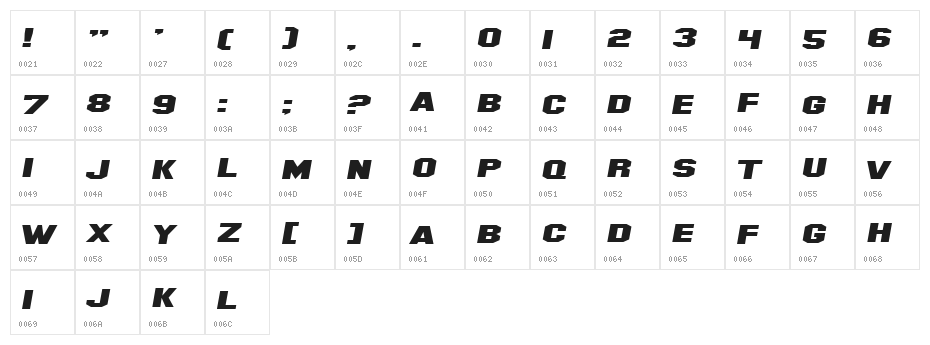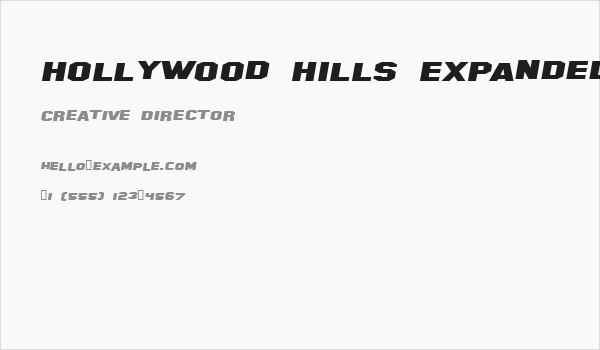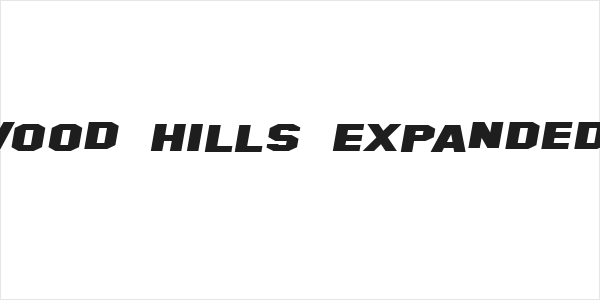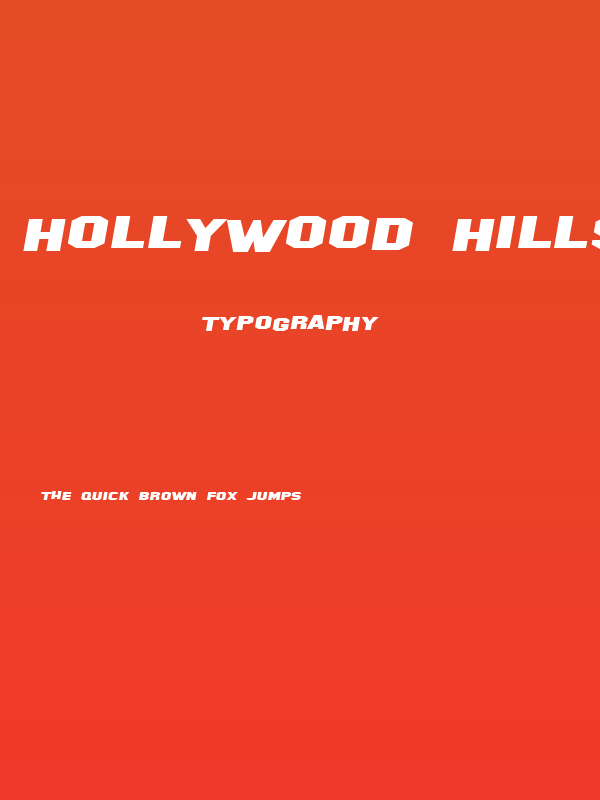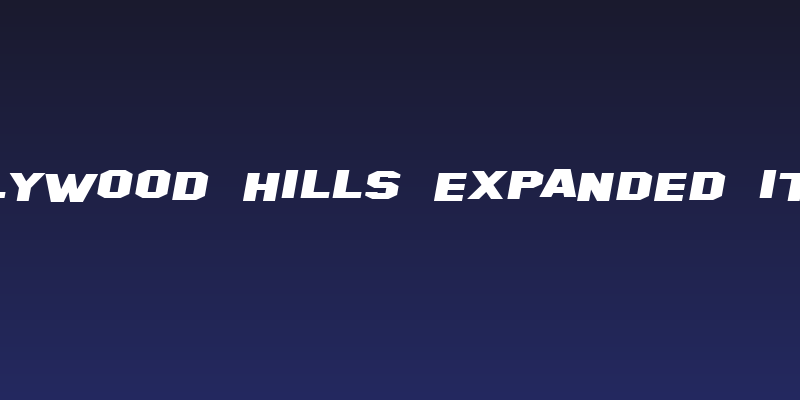
Hollywood Hills Expanded Italic Font
Hollywood Hills Expanded Italic Description
This font features a bold, dynamic style with an italic slant, giving it a sense of motion and energy. The characters are expanded, providing a wide stance that enhances readability and impact. The angular cuts and sharp edges contribute to a modern and assertive appearance, making it suitable for attention-grabbing designs. The uppercase and lowercase letters maintain consistency in style, while the numerals and special characters complement the overall aesthetic. This font is ideal for projects that require a strong, contemporary look.
| Proposed Projects | Ideal for branding, headlines, posters, and sports-themed designs. |